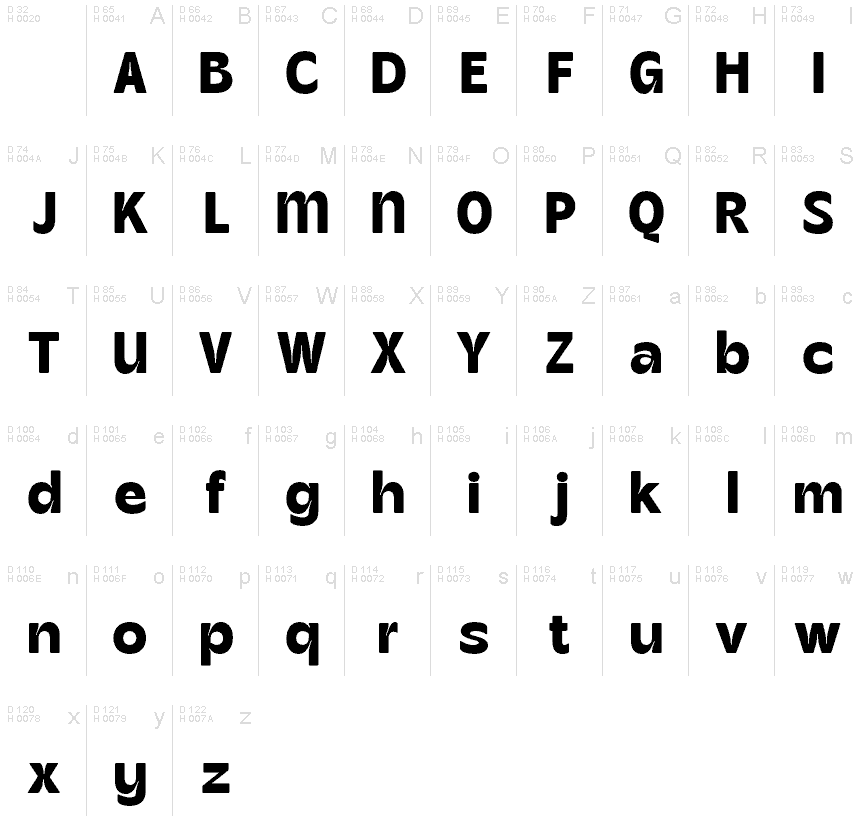
CS Latimer Regular Demo
CS Latimer font by Craft Supply Co. embodies a bold geometric sans serif style characterized by clean and modern letterforms. Its professional and versatile design uses legible shapes with consistent geometric proportions in a minimalist way. A seamless flow of even strokes balances positive and negative space throughout the typeface.